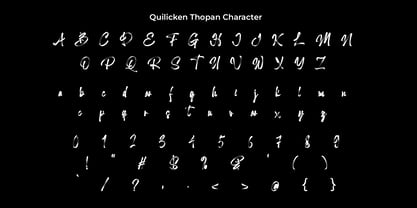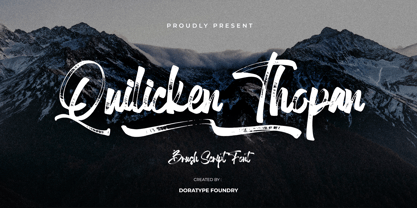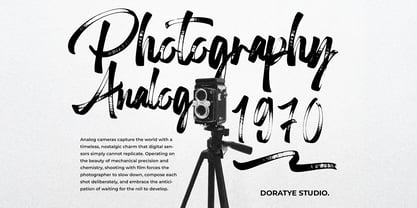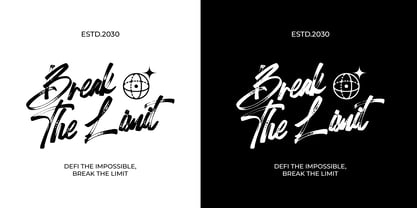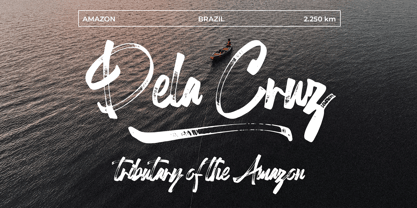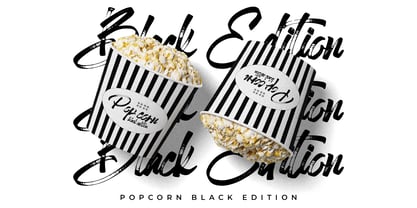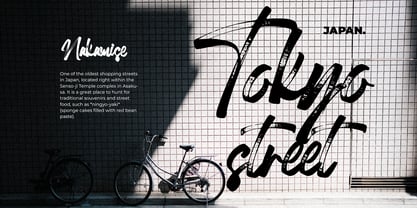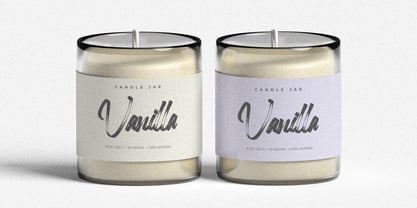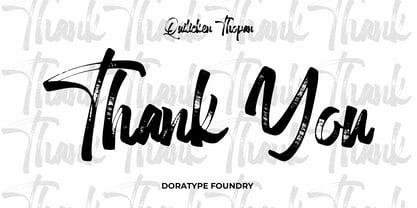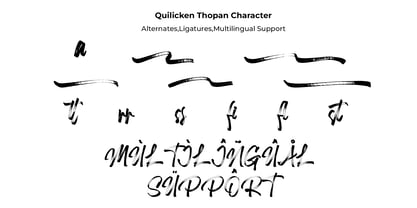
Qulicken Thopan
Die Schriftfamilie Qulicken Thopan wurde von Zahratul Laila entworfen und von Dora Typefoundry veröffentlicht. Qulicken Thopan enthält 2 Stile und Familienpaketoptionen. Mehr über diese Familie
Quilicken Thopan is a brush script font that blends handwritten characters with a bold, expressive, and artistic touch. Each stroke is crafted with an authentic brush texture, resulting in a look that is natural, dynamic, and daring. The fluid lettering, combined with distressed-style ink strokes, creates an impression that is both modern and full of character—making it an ideal choice for designs that aim to stand out and establish a strong visual identity.
This font is perfectly suited for a wide range of creative applications, including logos, branding, product packaging, posters, apparel, book covers, social media content, and promotional headlines, striking a balance between casual and professional styles.
Designer: Zahratul Laila
Foundry: Dora Typefoundry